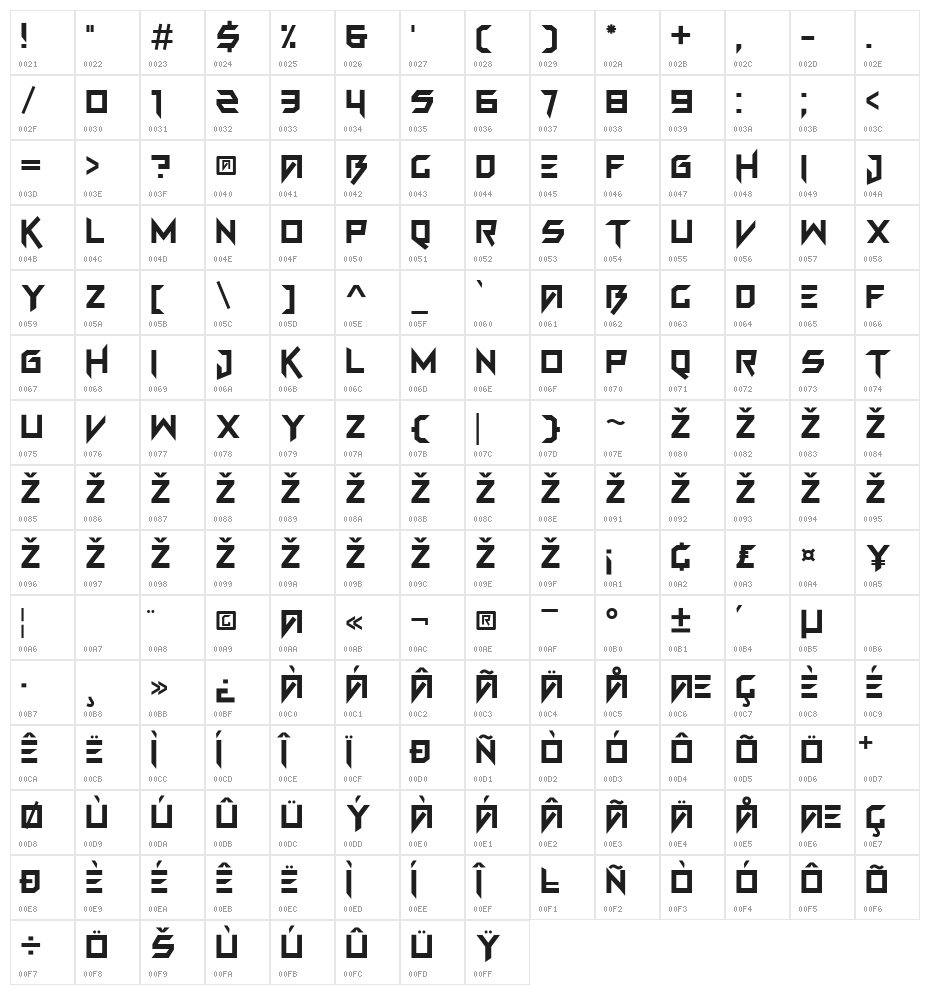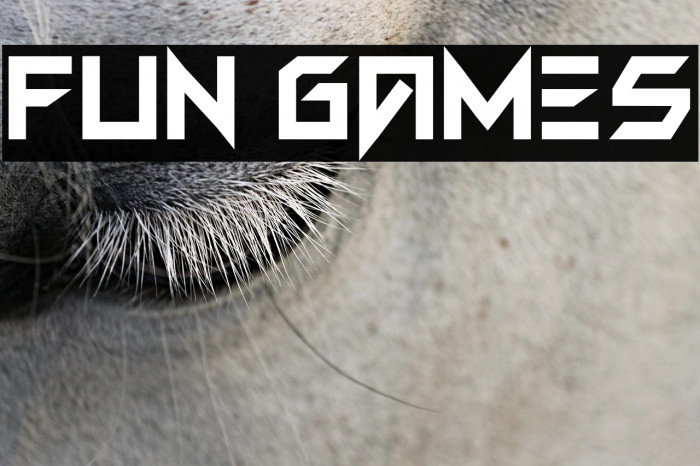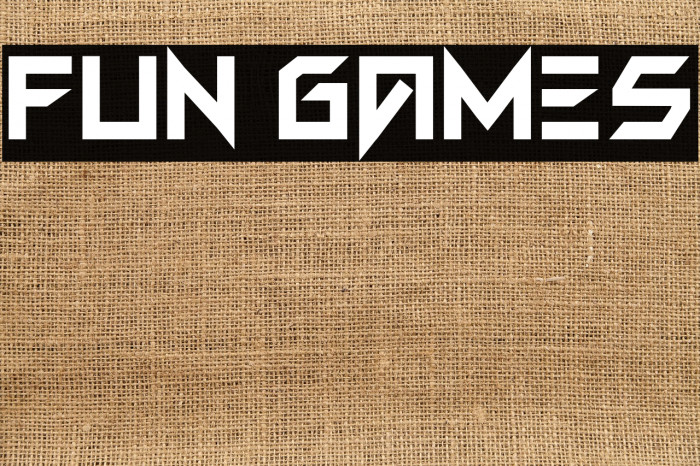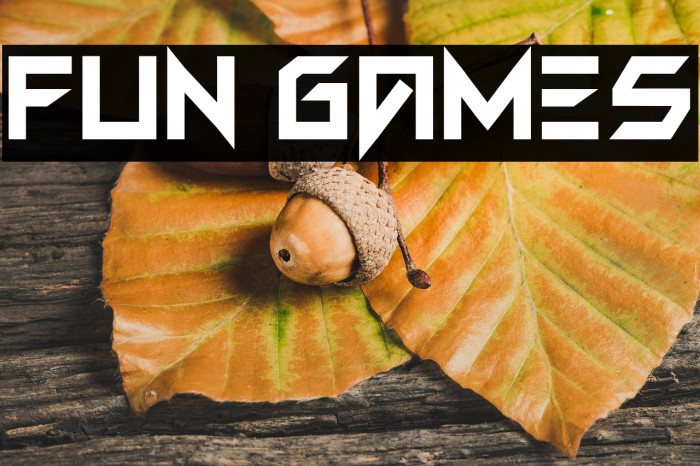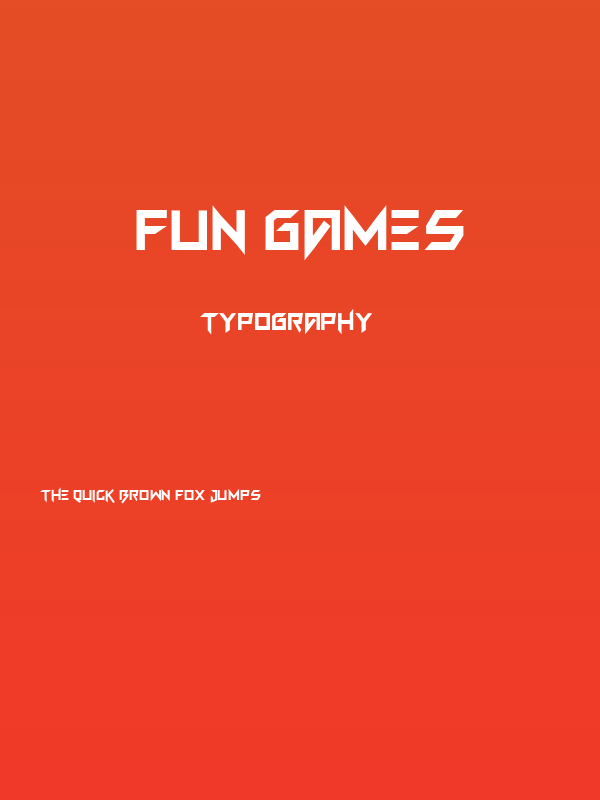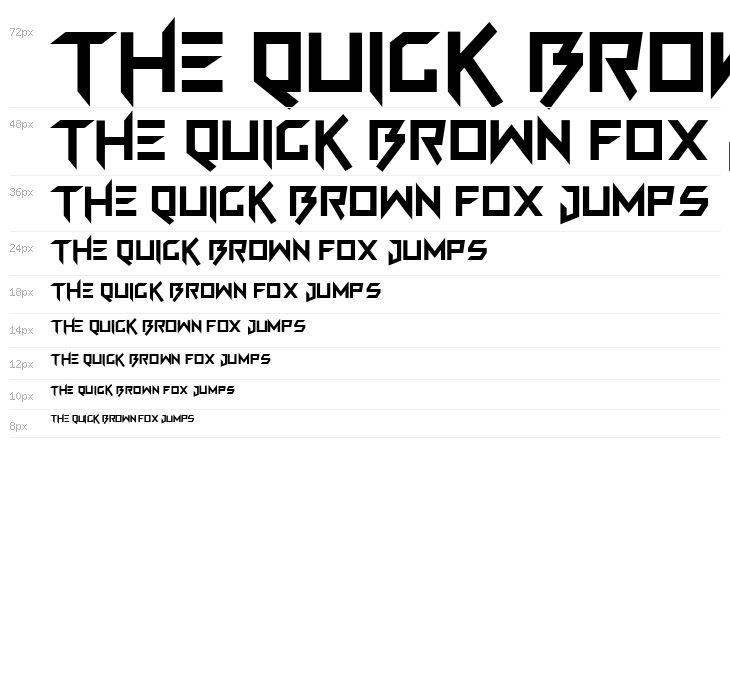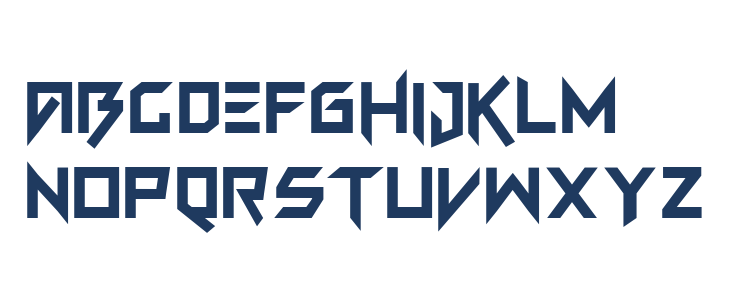
FUN GAMES Font
FUN GAMES Description
This font features a bold, geometric design with sharp angles and a futuristic aesthetic. The characters are constructed with a combination of straight lines and acute angles, giving them a dynamic and edgy appearance. The uppercase letters are particularly striking, with a consistent height and width that maintains a uniform look across the alphabet. The numerals and special characters follow the same angular style, ensuring a cohesive visual identity. This font is ideal for projects that require a modern and bold statement, such as video game titles, tech branding, or sci-fi themed designs.
| Proposed Projects | Ideal for video game titles, tech branding, sci-fi themed designs, and modern posters. |